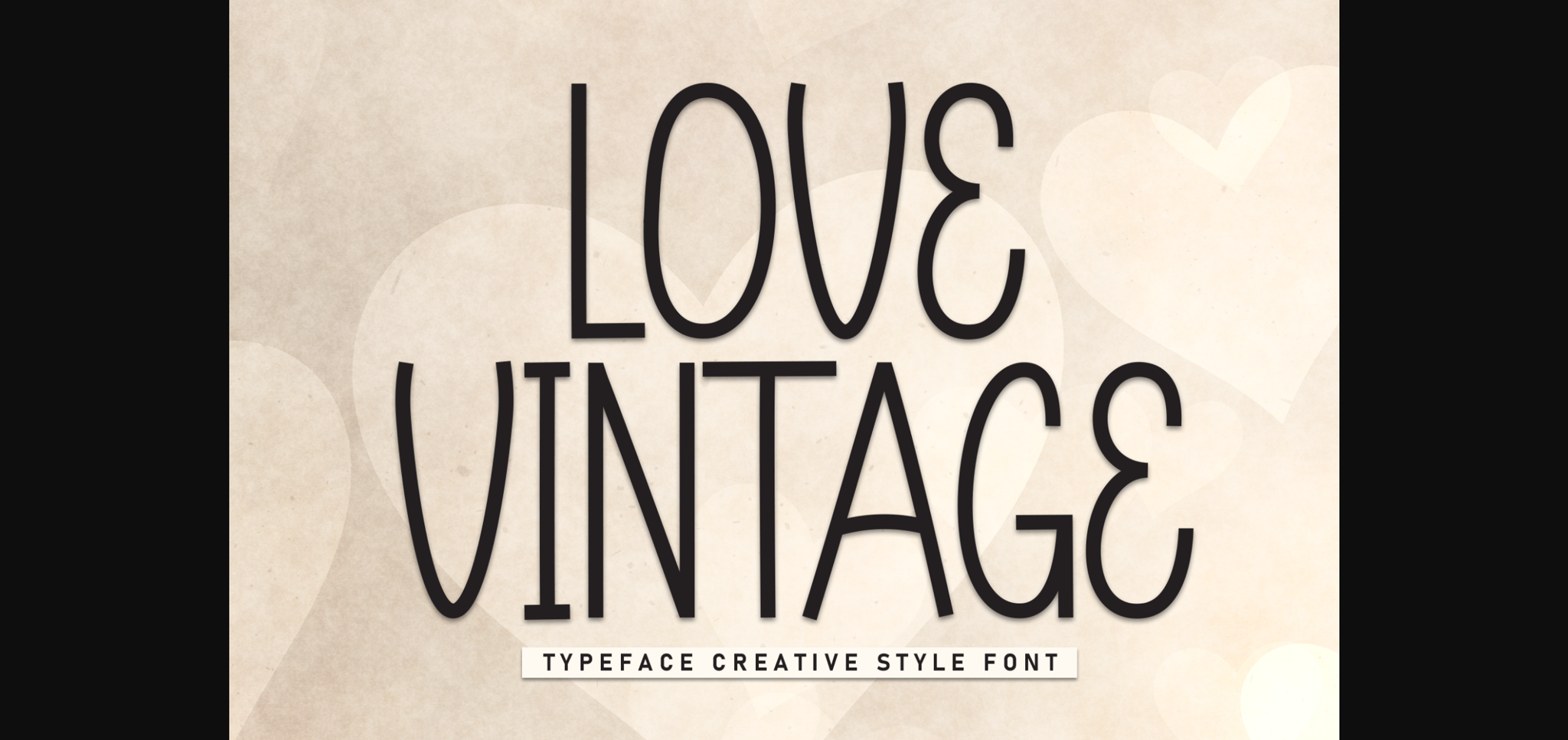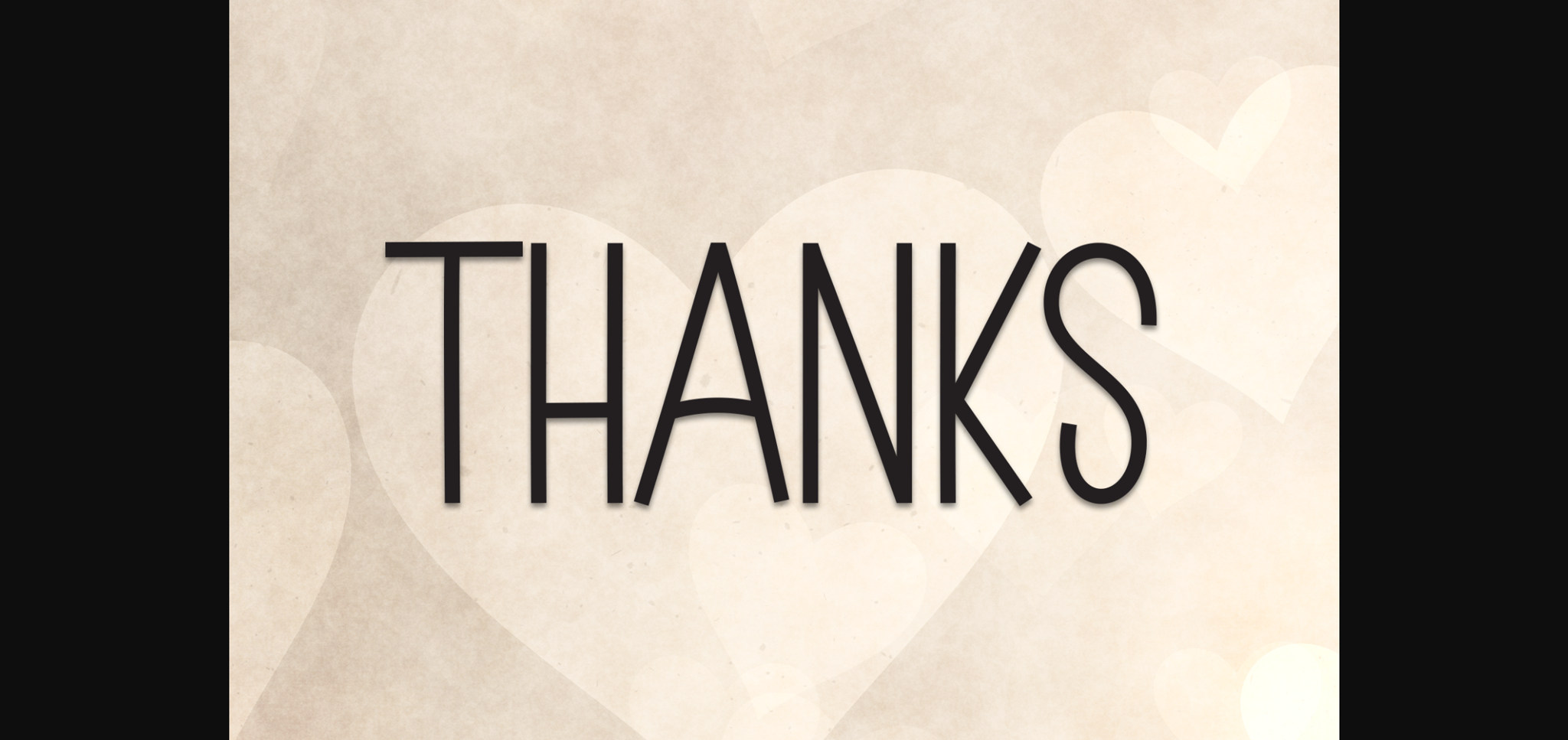
About Love Vintage Font
Love Vintage is a sweet and friendly sans-serif font. Cute and versatile this font is ideal for writing wedding invitations, cards, or any other design that might need a fun touch!